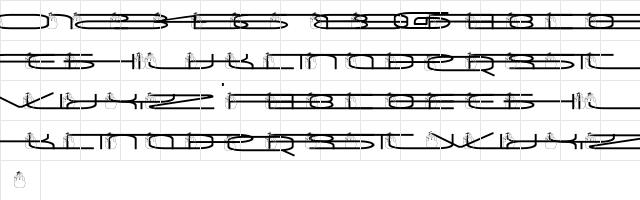
pf_Univox_snowman Atom Light
Design Context for pf_Univox_snowman Typeface
pf_Univox_snowman is a composed and adaptable typeface that performs quietly and consistently across a wide range of design contexts. Its slender proportions lend an understated elegance to any composition.